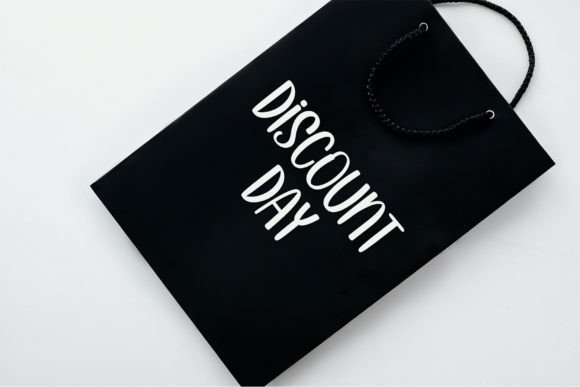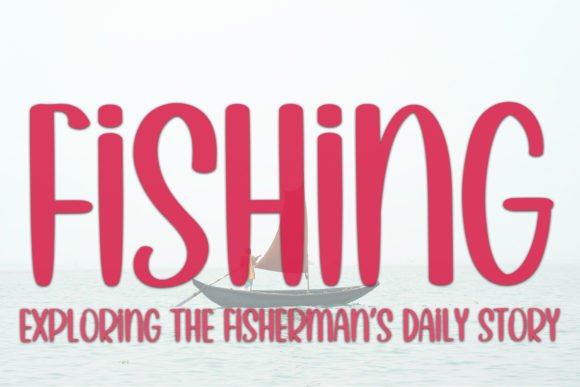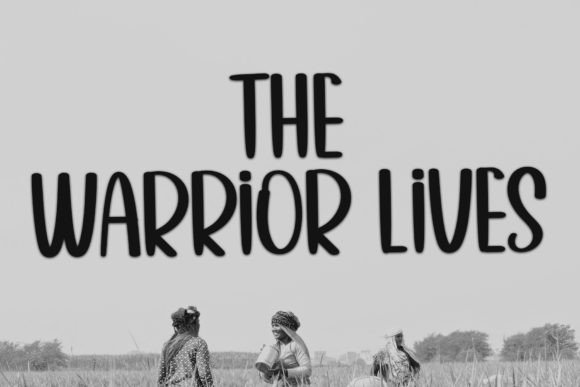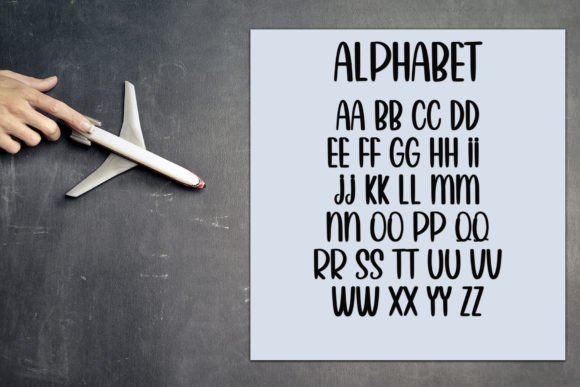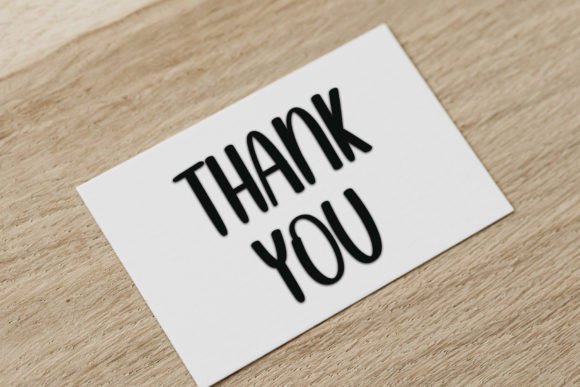
Discover the Magic of Alphabet Font
Have you ever sat down with a blank canvas or a fresh sheet of paper, and suddenly, your creative juices start flowing? The blank space is calling out to you, begging to be transformed into something beautiful. For designers, this moment is the spark that ignites a new project, a new idea, or a new passion. And for those who crave that extra touch of elegance, the Alphabet Font is the perfect companion.
This charming handwritten font is carefully crafted to bring a touch of sophistication to any design. Whether you’re creating a stunning Instagram post, a beautiful invitation, or a set of DIY calligraphy scripts, Alphabet Font will elevate your creative idea into a true work of art. As a designer, you’ll appreciate the versatility and uniqueness of this font, making it a valuable addition to your toolkit.
- Unique Characteristics: The Alphabet Font features a modern, clean, and minimalist design with a subtle rounded edge, making it perfect for digital and print media.
Designer Review: Alphabet Font
Overall, I was excited to dive into the Alphabet Font, and while it has its strengths, it also has some limitations that hold it back from being a top-notch font choice.
- The Alphabet Font has a clean and modern aesthetic, making it perfect for digital designs such as websites, social media graphics, and mobile apps.
- The font is highly customizable, with a wide range of font sizes, colors, and styles available, making it easy to tailor to your specific design needs.
- The font is also highly legible, making it easy to read even at small font sizes.
- The Alphabet Font can feel a bit too sterile and lacking in personality, making it less suitable for print designs or projects that require a more emotive tone.
- The font can also feel a bit too bold, which may not be suitable for designs that require a more subtle approach.
- The font library is not as extensive as some other popular font options, which may limit its versatility in certain design projects.
In conclusion, while the Alphabet Font has its strengths, its limitations hold it back from being a top-notch font choice. However, it can still be a great option for digital designs that require a modern and clean aesthetic.
The Alphabet Font is commonly used in:
- Children’s educational materials.
- Party invitations and decorations.
- Wall art and posters.
To get the most out of the Alphabet Font, try:
- Combining it with other playful fonts for a unique look.
- Using it in bold or italic styles for emphasis.